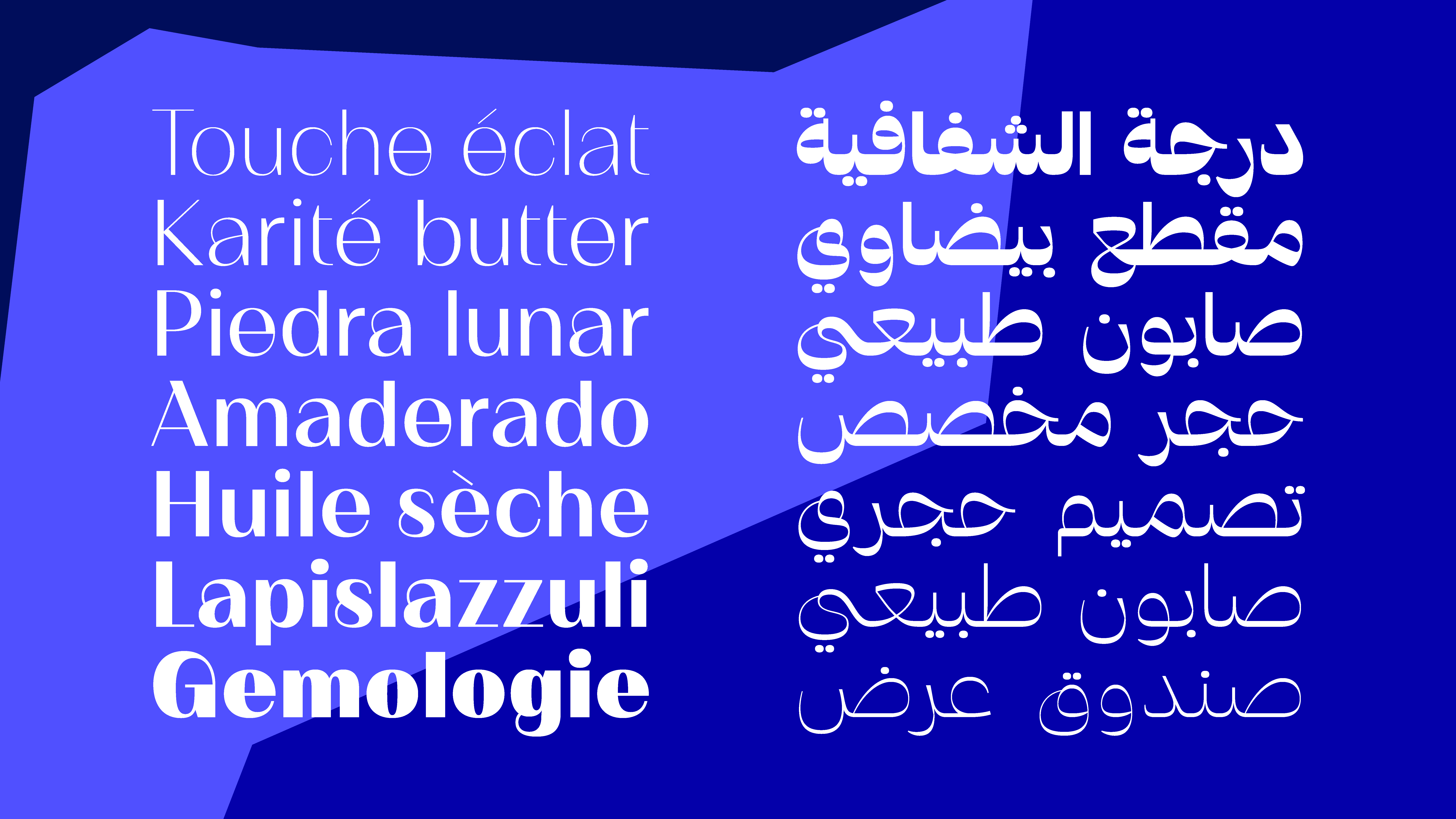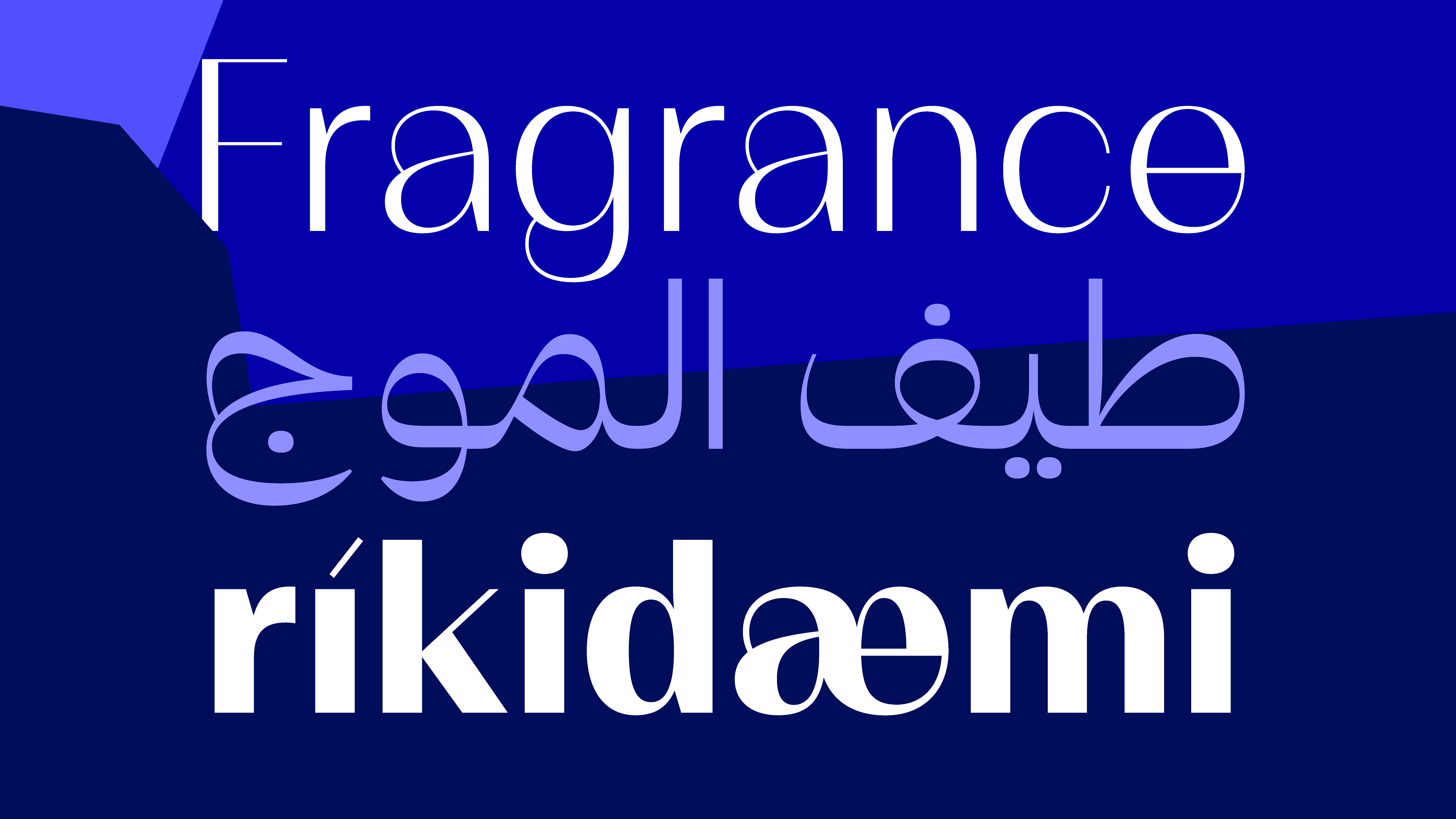
Suhana
سوهانة
ⵙⵓⵀⴰⵏⴰ
Suhana — Refined curves. Quiet elegance. With its delicate terminals and fluid structure, Suhana is a high-contrast typeface that radiates sophistication. Designed for elegance and clarity, it comes in multiple weights, with stylistic alternates that emphasize a botanical, almost calligraphic feel. Supporting Latin and Arabic, Suhana is a natural fit for beauty brands, luxury packaging, or editorial design: wherever grace meets precision.
Designers: Brahim Boucheikha, Gia Tran, Jean-Baptiste Pernette, Étienne Guégano, Léo Rosina